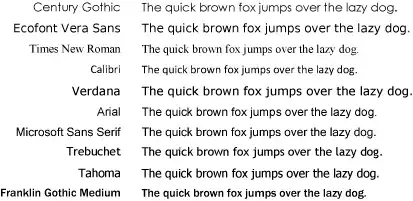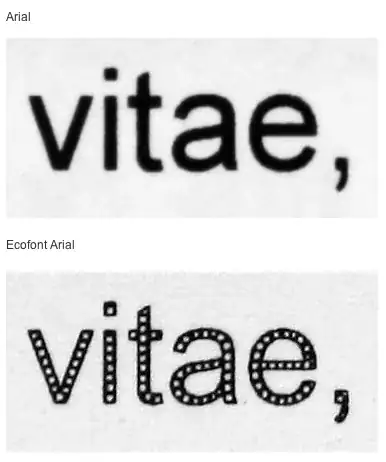
I'm developing a Microsoft Word document that reached more than 200 pages and I want to print it using my Laserjet or my father's Inkjet printer.
I can save paper using both sides of each sheet, however I can't save ink/toner using smaller fonts or un-bolding words (I already did it), so I started wondering about the fonts that I was using.
For example, the most used fonts, Arial and Times New Roman have specific and relevant differences with regards to ink consumption:
Arial font sample has uniform width across all the letters, and is more easily readable and "clean to see".
Times New Roman font sample has narrow width on center and an enlargement at the ends.
Using Times New Roman will certainly save ink/toner but will also "pollute" the reader vision over time.
So, there is some specific font (from more than 100 that I have on Windows) that could save ink and also keep a clean text?
You might think that Arial is more readable, but the usual consensus is that for printed (and thus much higher resolution) materials a seriffed typeface is easier to read (assumed that the serifs help guide the eyes along the lines). – Richard Sep 28 '11 at 15:45
Richard is totally right, how did you get the idea that serif fonts would "pollute the vision"? It is much, much more comfortable on the eyes in long texts. Why do you think are virtually all newspapers and books printed in serif fonts? Hint: toner is NOT a consideration, large newspapers care only about typography. – Felix Dombek Sep 28 '11 at 17:16
• When I said "pollute vision" I mean that after reading 150 pages, you would get more tired than if you was rading an arial font. – Diogo Sep 28 '11 at 17:26
@Diogo As far as I know, the eyes getting tired complaint is meant for serif fonts _on screen_, the rationale being that the serifs end up rendered as single pixels or non-black pixels. The clean outlines of sans-serif fonts have higher and more consistent contrast on screen. The "pixel" density of even cheap printers is much, much higher than that of computer displays, meaning that even the thinned segments of serif fonts end up having great contrast, while the serifs create "virtual" horizontal lines for the eye to follow, making reading long passages of text more comfortable. – millimoose Sep 28 '11 at 18:26
@Diogo Also, Times New Roman is particularly "dramatic" about the difference in thickness of its thin and thick segments. You could try something less uneven, like Hoefler Text, Georgia, or [Lido STF](http://new.myfonts.com/fonts/storm/lido-stf/). Also bear in mind that ClearType tends to mangle serif fonts quite a bit, so Times New Roman will look much thicker on paper. That said, there is no accounting for taste, pick what you *like* first and foremost. – millimoose Sep 28 '11 at 18:32
• The reason serif fonts are easier to read is probably more related to that the serifs give more shape to both the letters and more important, whole words. Familiar shapes are read one word at a time, rather than the individual letters. Btw, Times New Roman is hand-hinted rather extensively for smaller sizes, which is why it may look thinner on the screen that it "really" is. –  Sep 28 '11 at 20:35
• I personally find sans fonts easier to read anywhere, on account of being dyslexic YMMV if you arn't. – Journeyman Geek Sep 29 '11 at 10:37
• There was an article on CNET ["The right font can save you money"](https://www.cnet.com/news/the-right-font-can-save-you-money/). They changed the font of the text on the page and calculated ink coverage with [APFill Ink Coverage Calculator software](http://avpsoft.com/products/apfill/) to find which font has the minimum ink coverage for a given text. – valex Jan 27 '17 at 08:05
University of Wisconsin Green Bay changed to Century Gothic, which they claim uses roughly 30 percent less ink when printed on paper. Here's an article on the University change.
Folks at Ecofont say theirs saves more. Looks like a bit of a debate but ongoing research might find a winner.
Here is an EcoFont comparison with other well known fonts.
Here are Arial and EcoFont compared:
There's also a font with holes in it by a company called ecofont which you can download here based off bitstream vera